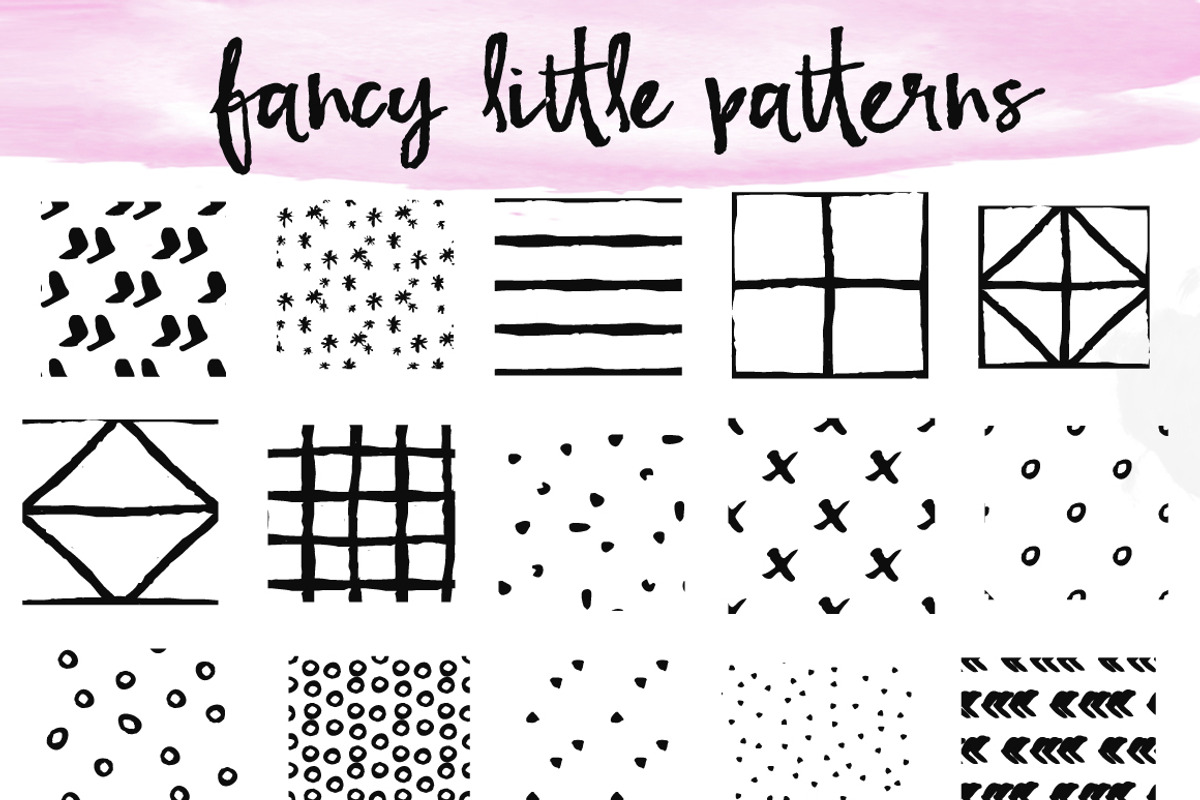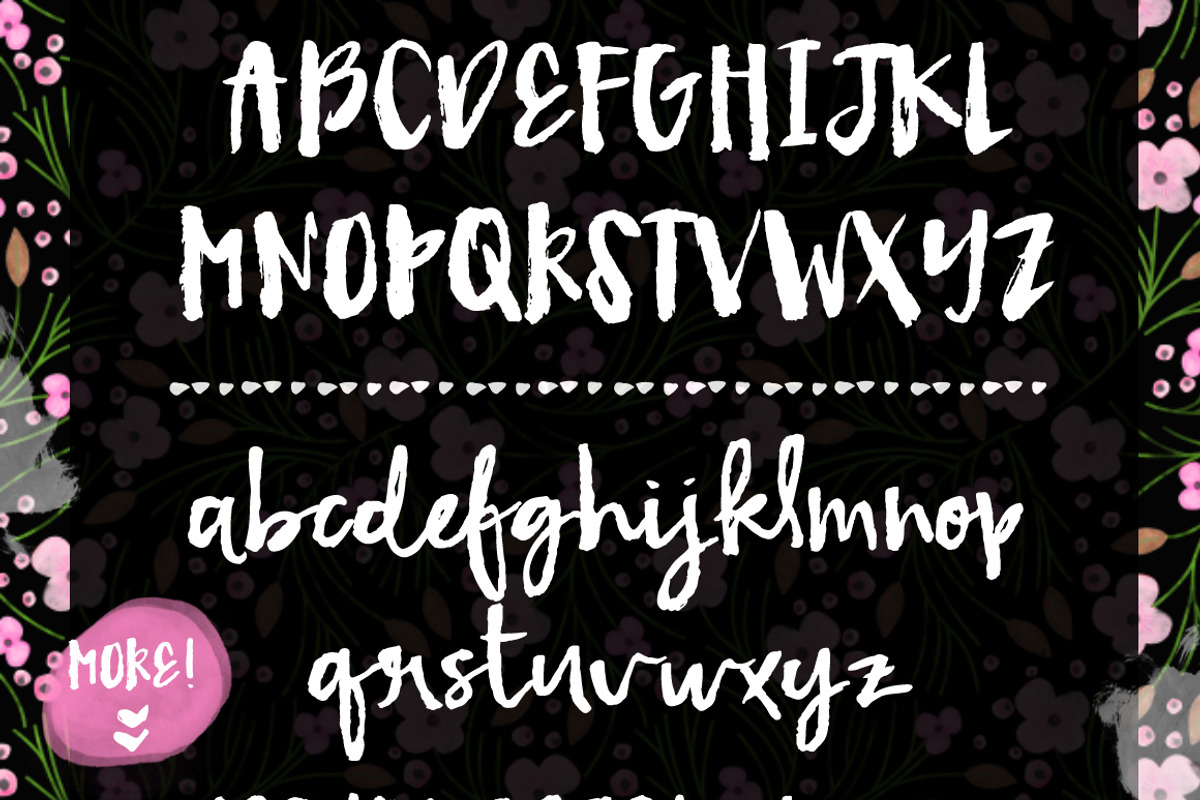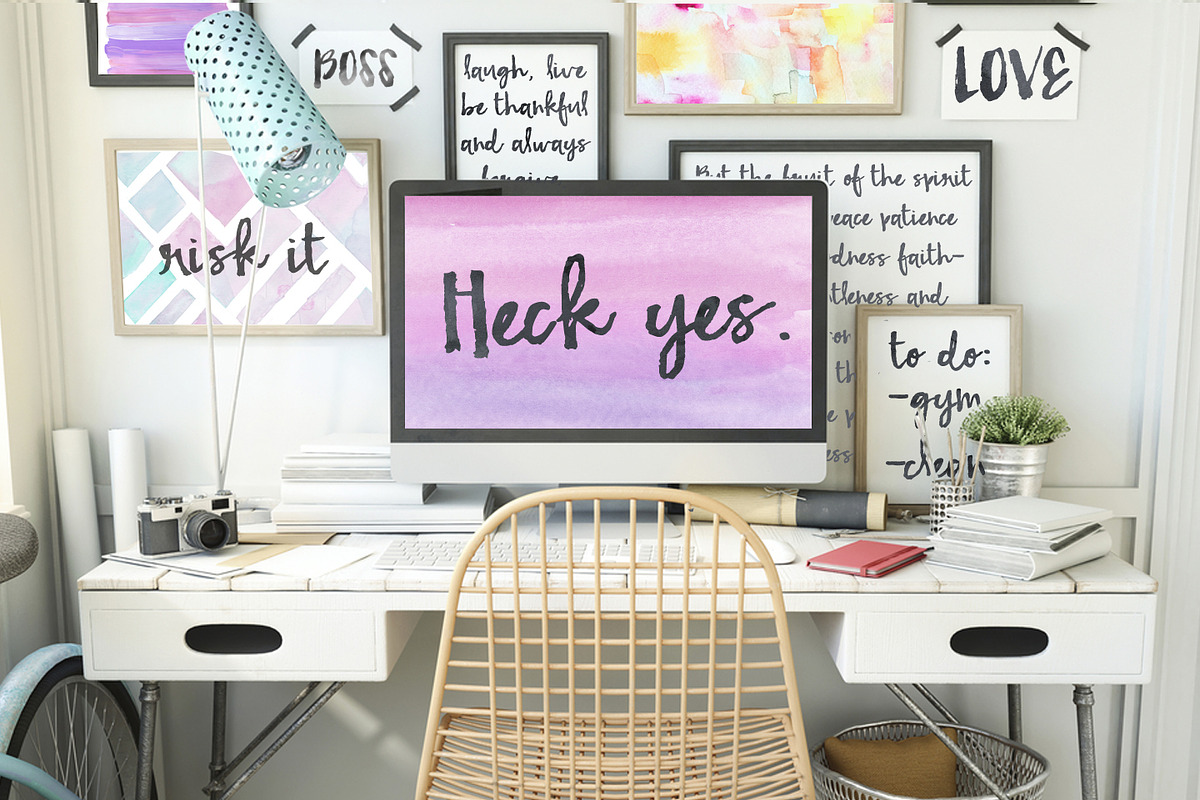
Fetching- A Modern Brush Font
Fetching- A Modern Brush Font by Angie Makes is a font selected for branding, posters, packaging, typography.
- Uppercase letterforms include a subtle rough brushed texture.
- Lowercase letterforms include several unique pairs for a convincing hand-drawn look.
- Also, with contextual alternates in your open type software turned on, try typing ++ and to generate dotted and solid line borders.
Why Fetching- A Modern Brush Font is worth a look
Fetching- A Modern Brush Font by Angie Makes fits naturally into Branding, posters, packaging, typography.